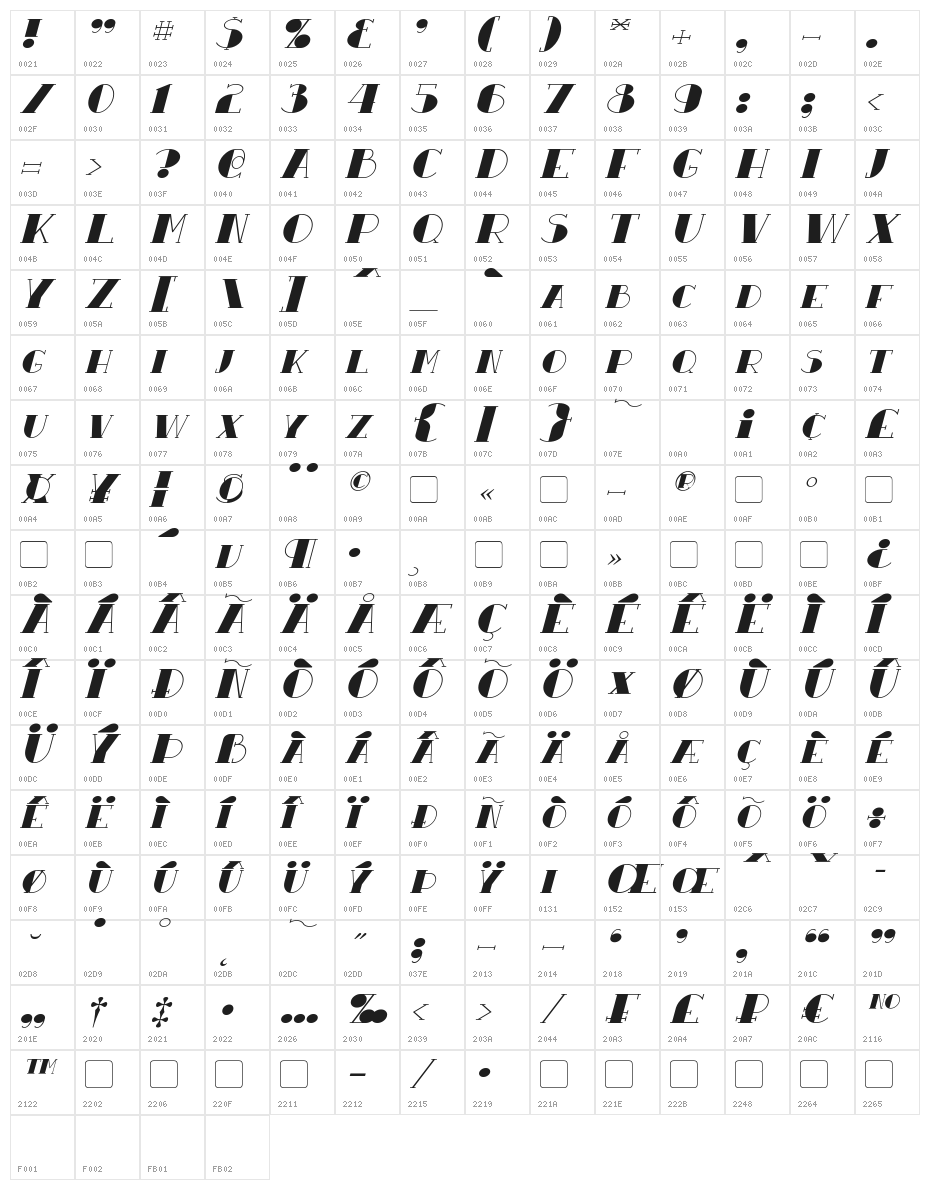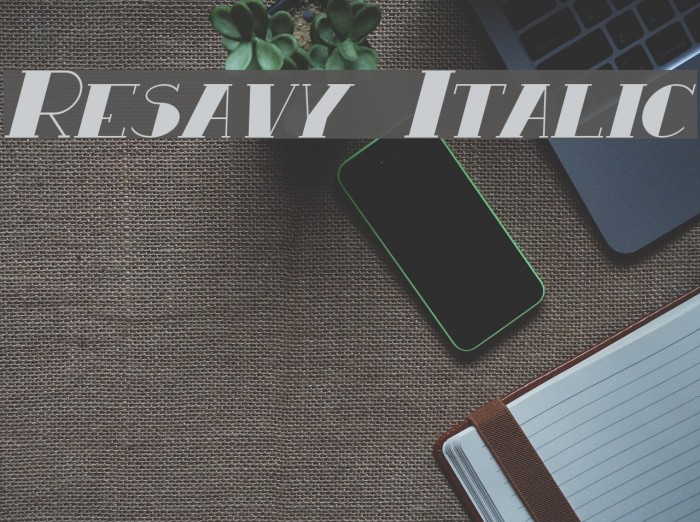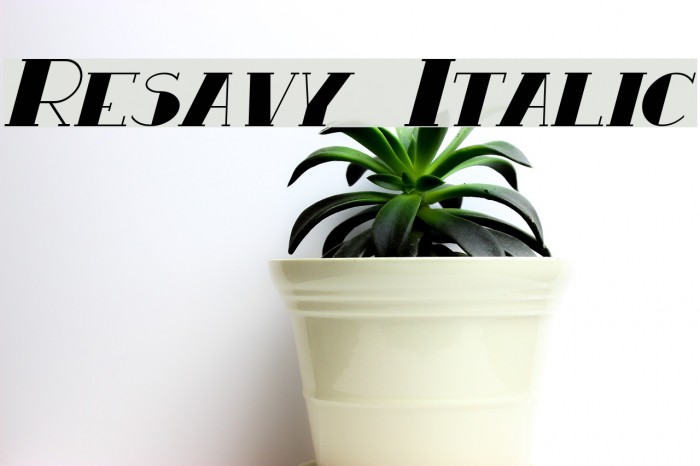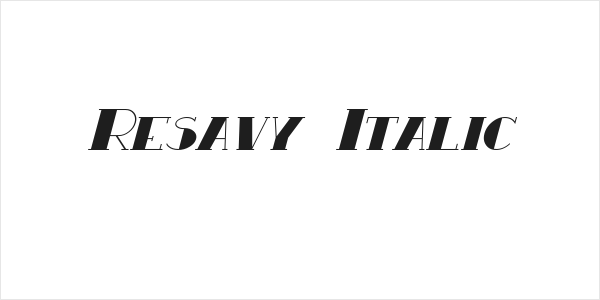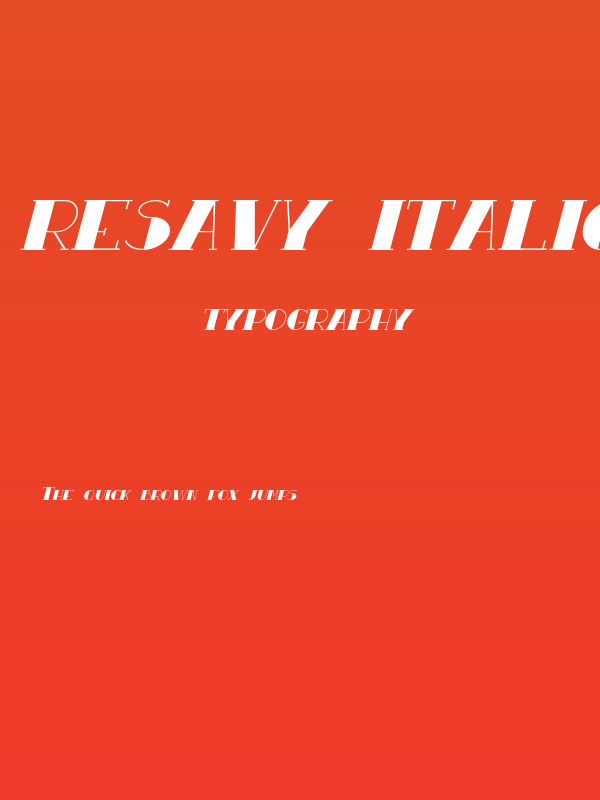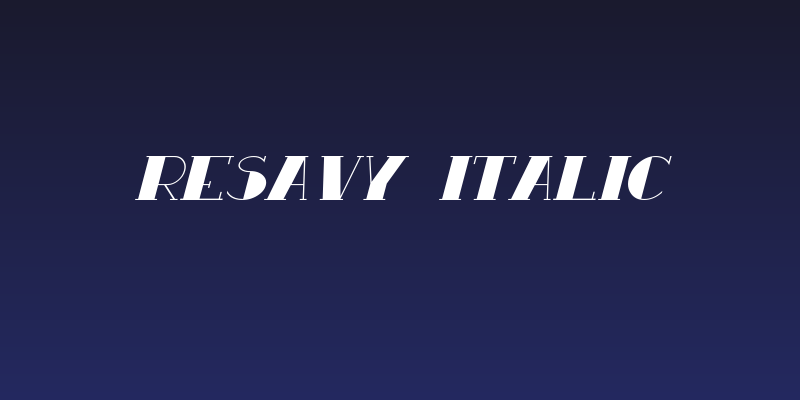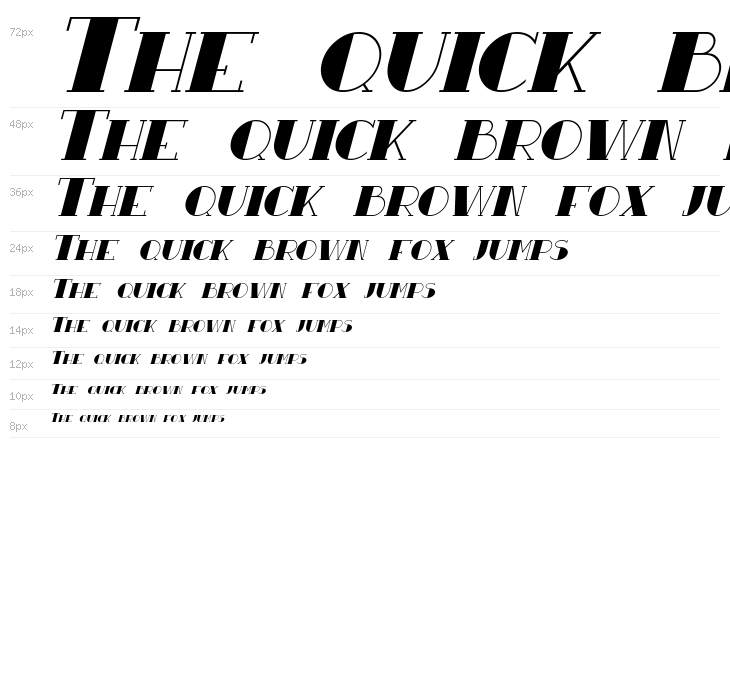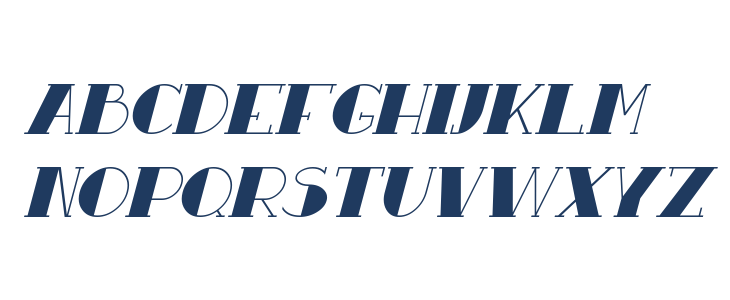
Resavy Italic Font
Resavy Italic Description
This font features a dynamic and elegant italic style with a high contrast between thick and thin strokes. The characters are slightly slanted, giving a sense of motion and sophistication. The uppercase letters are bold and commanding, while the lowercase letters maintain a consistent flow. The numerals are distinct and easily readable, with a stylish flair that matches the overall aesthetic. Special characters are designed with the same attention to detail, ensuring a cohesive look across all glyphs. This font is perfect for projects that require a touch of elegance and modernity.
| Overall Style | Elegant and modern |
| Proposed Projects | Ideal for luxury branding, fashion magazines, elegant invitations, and modern logos. |